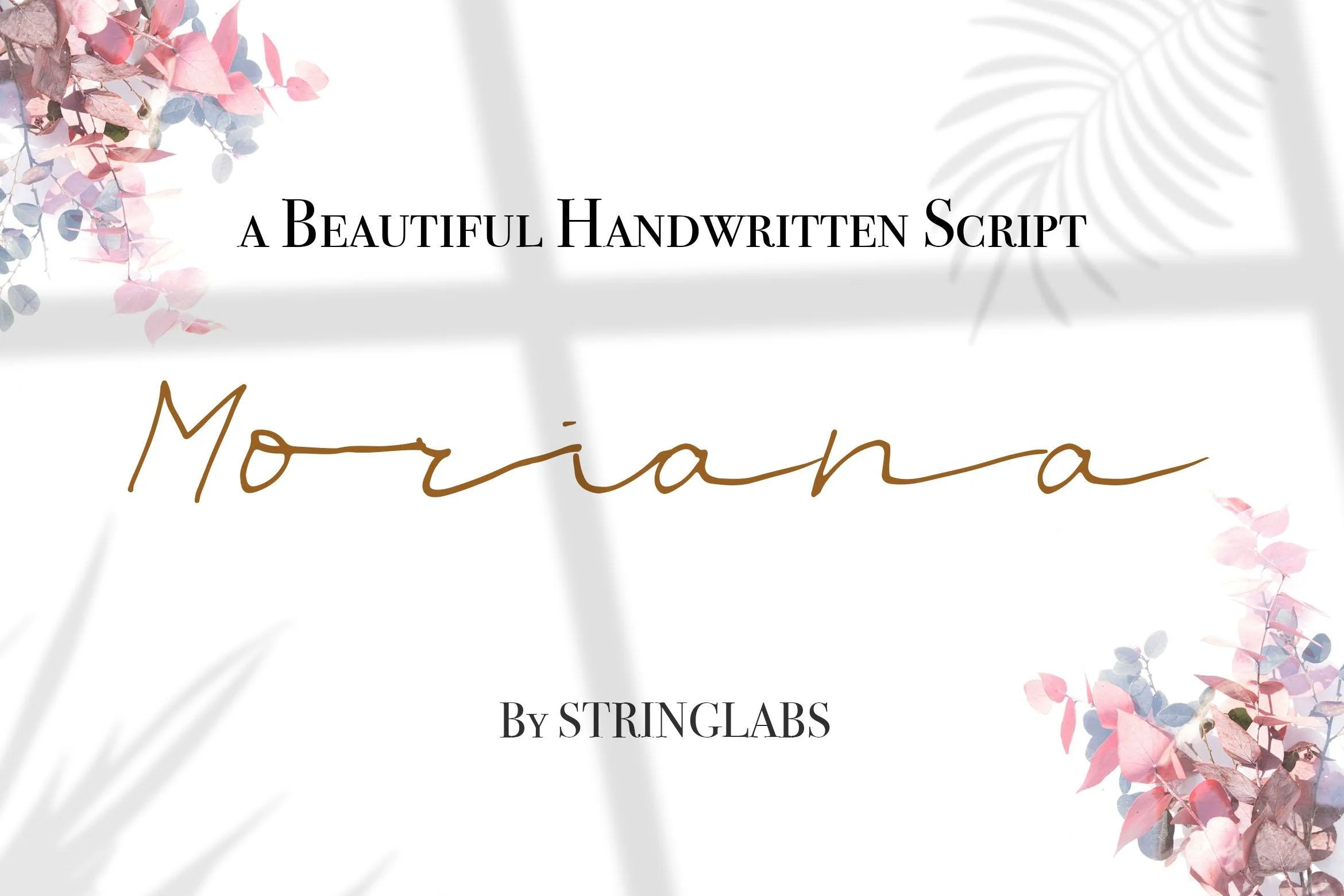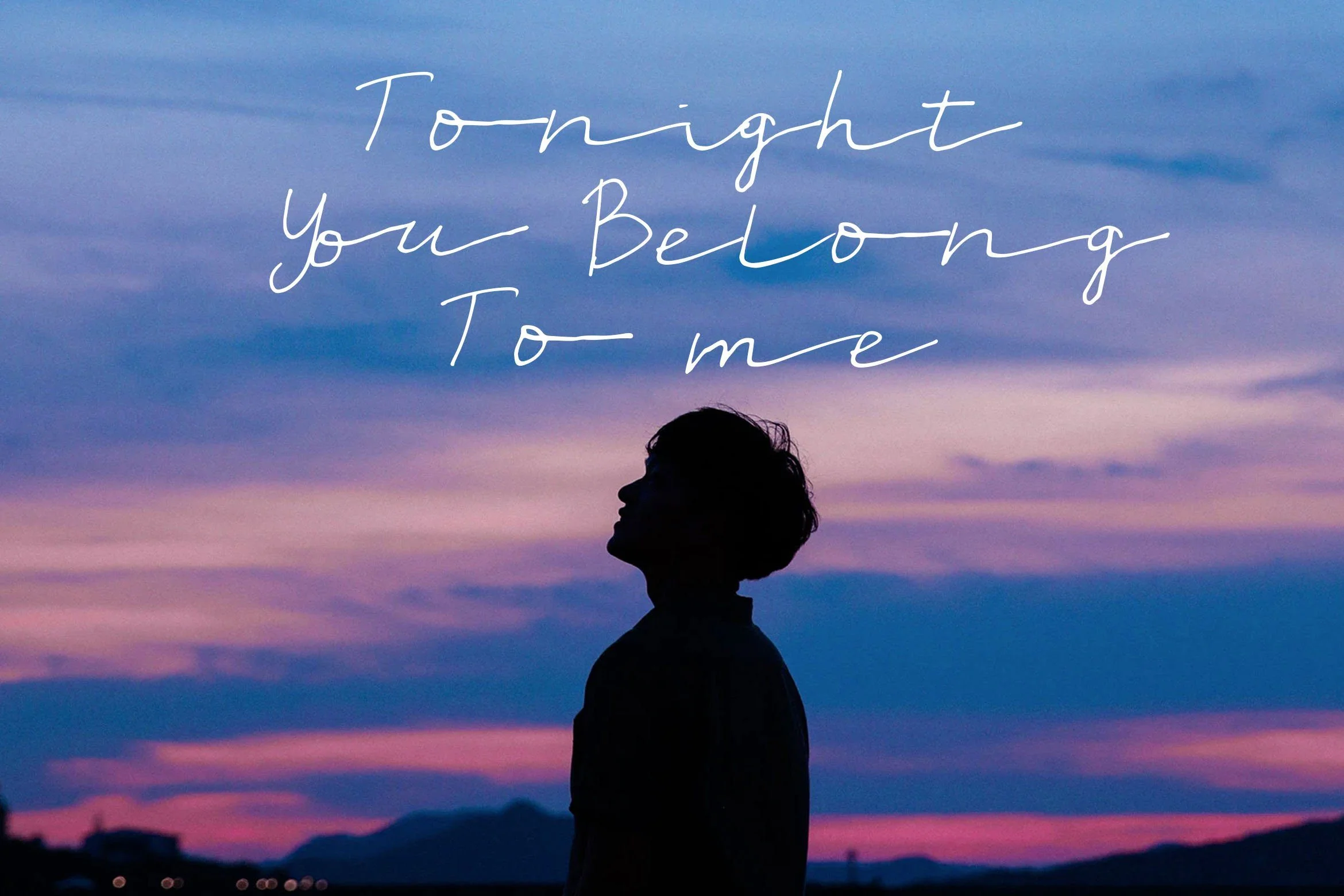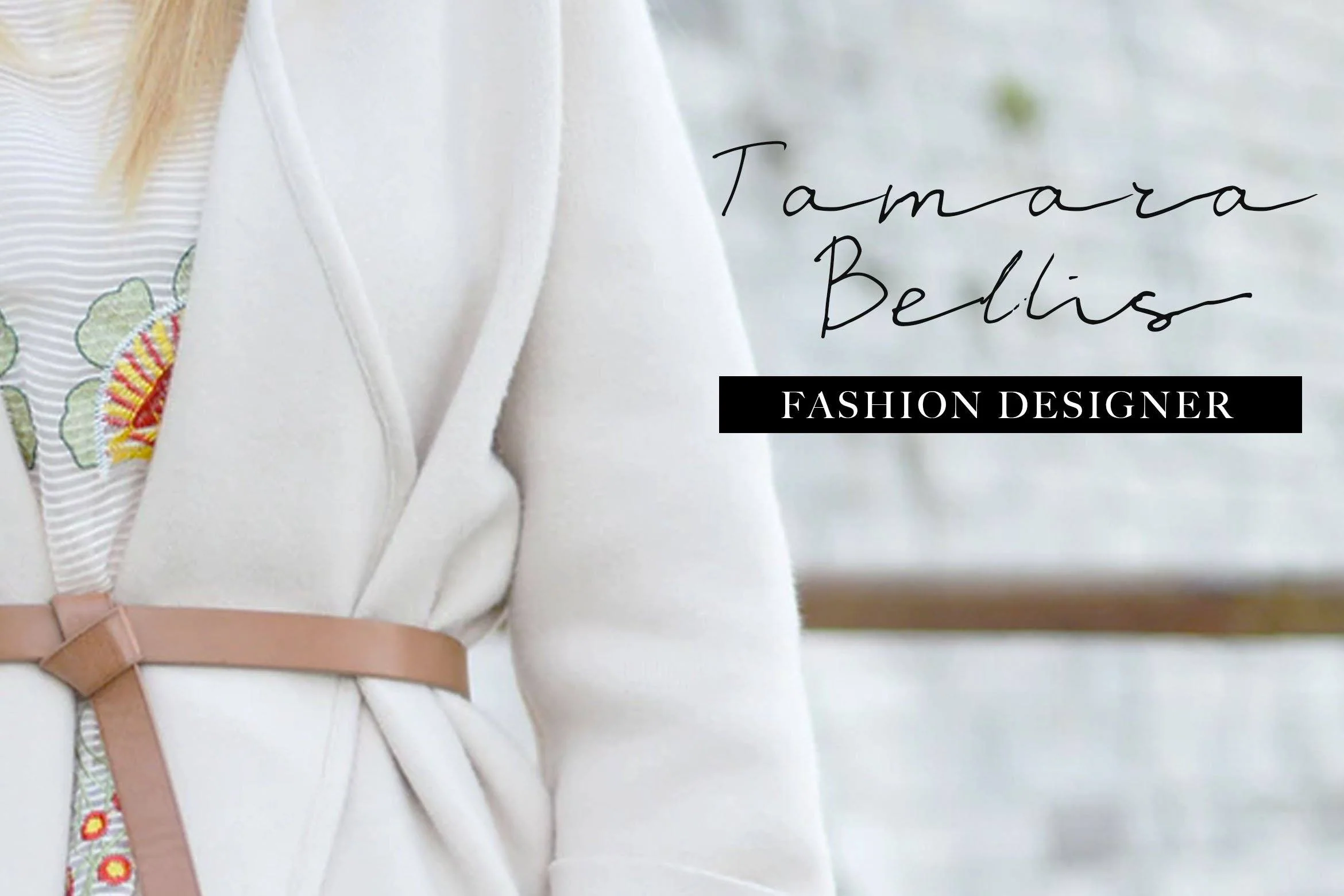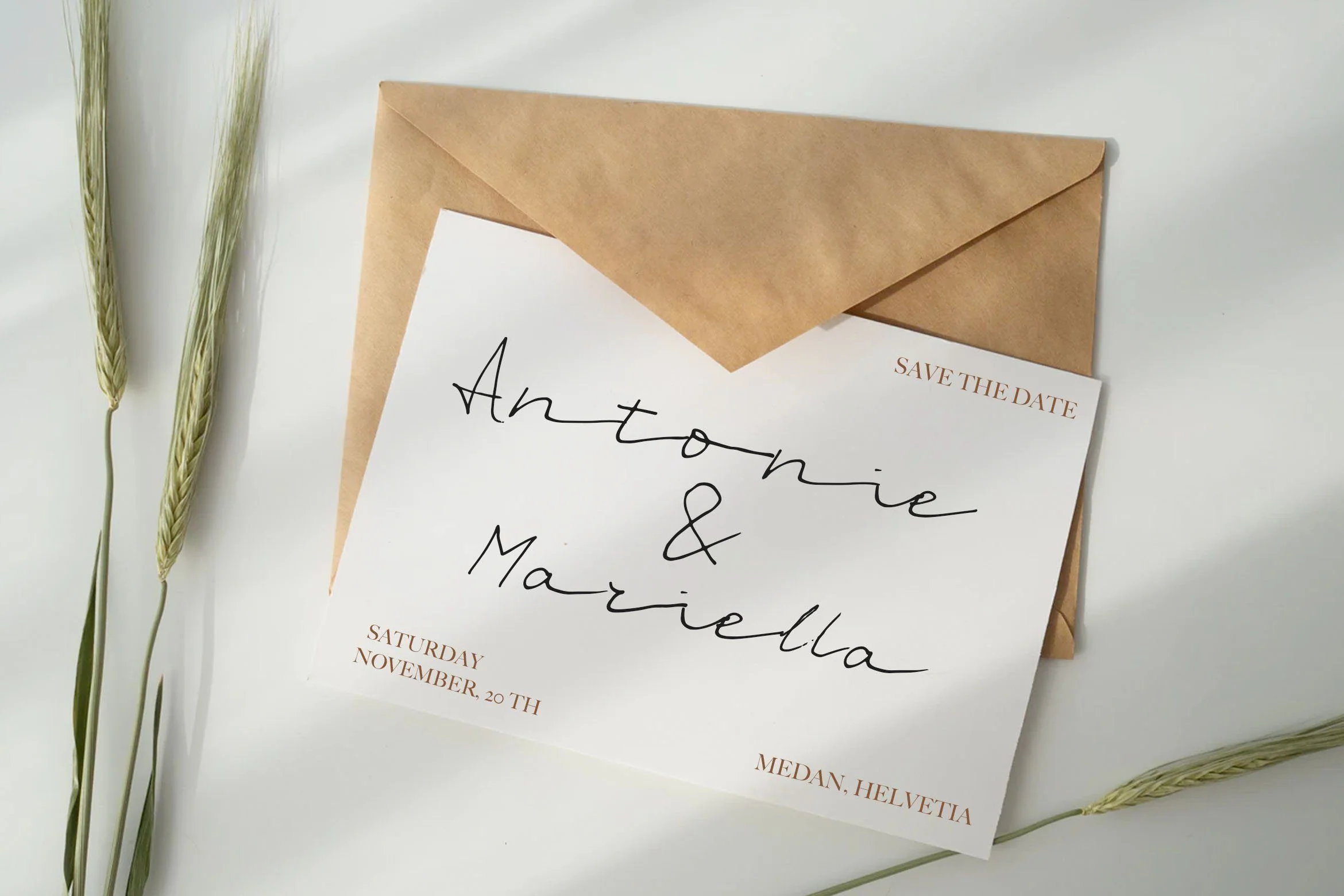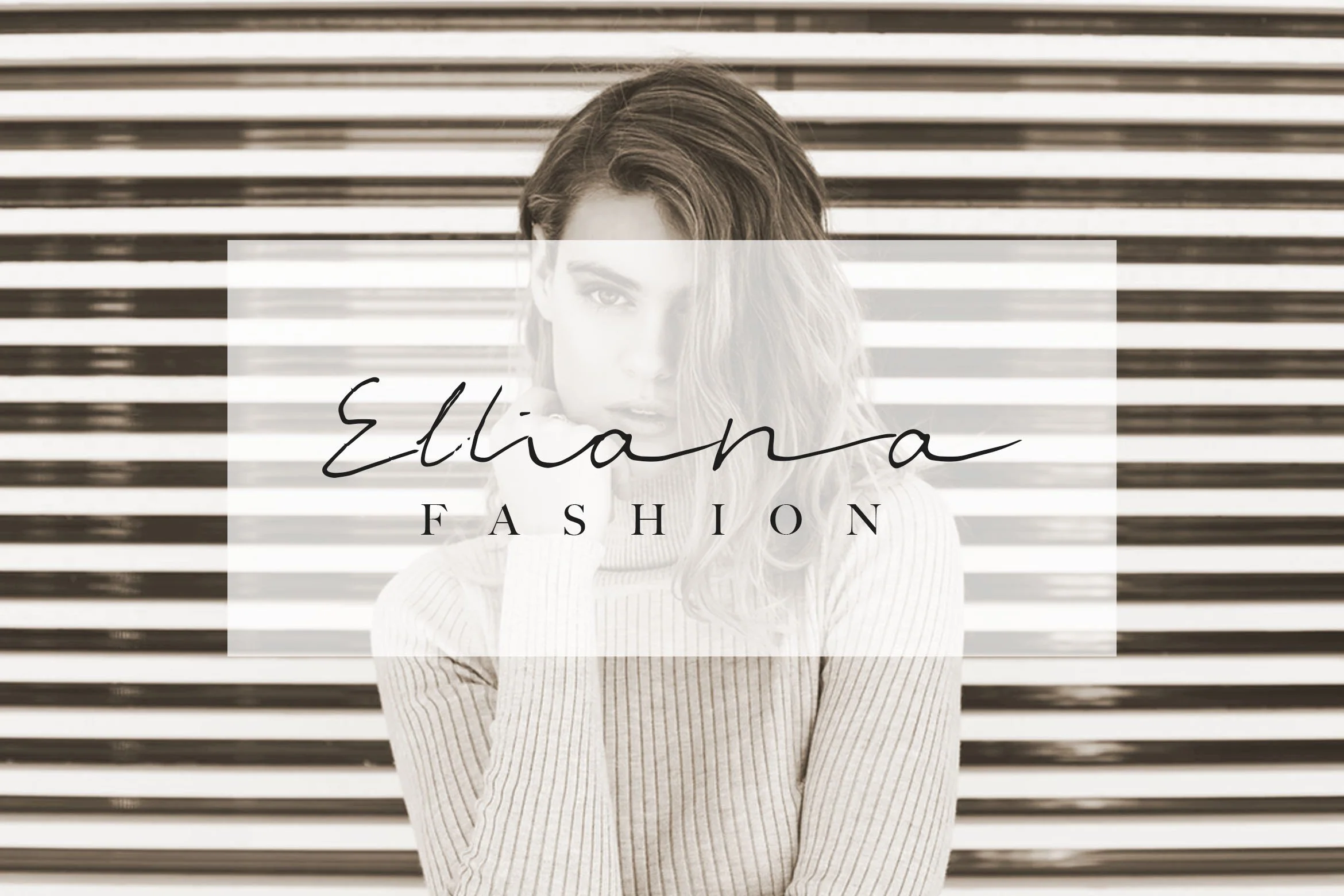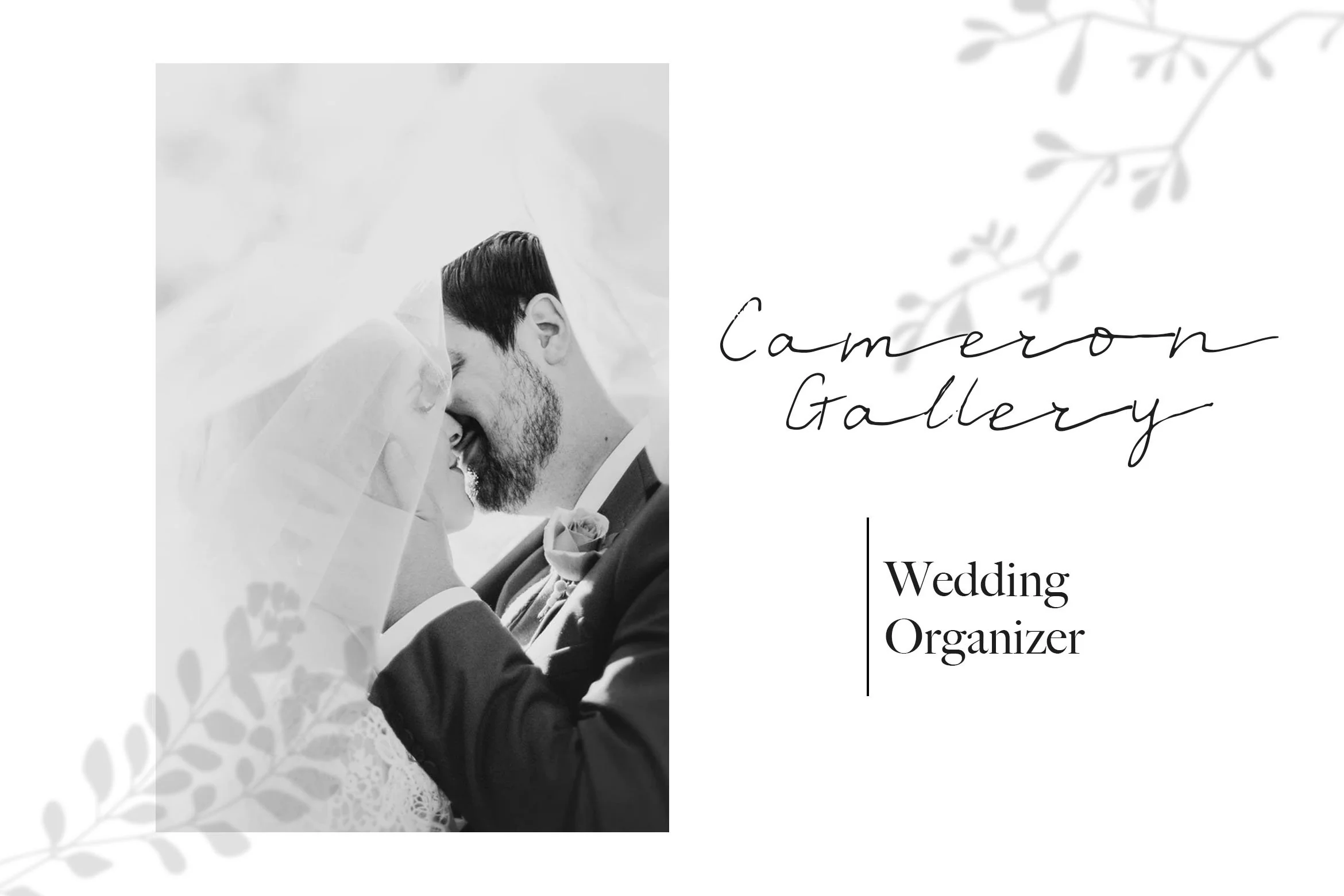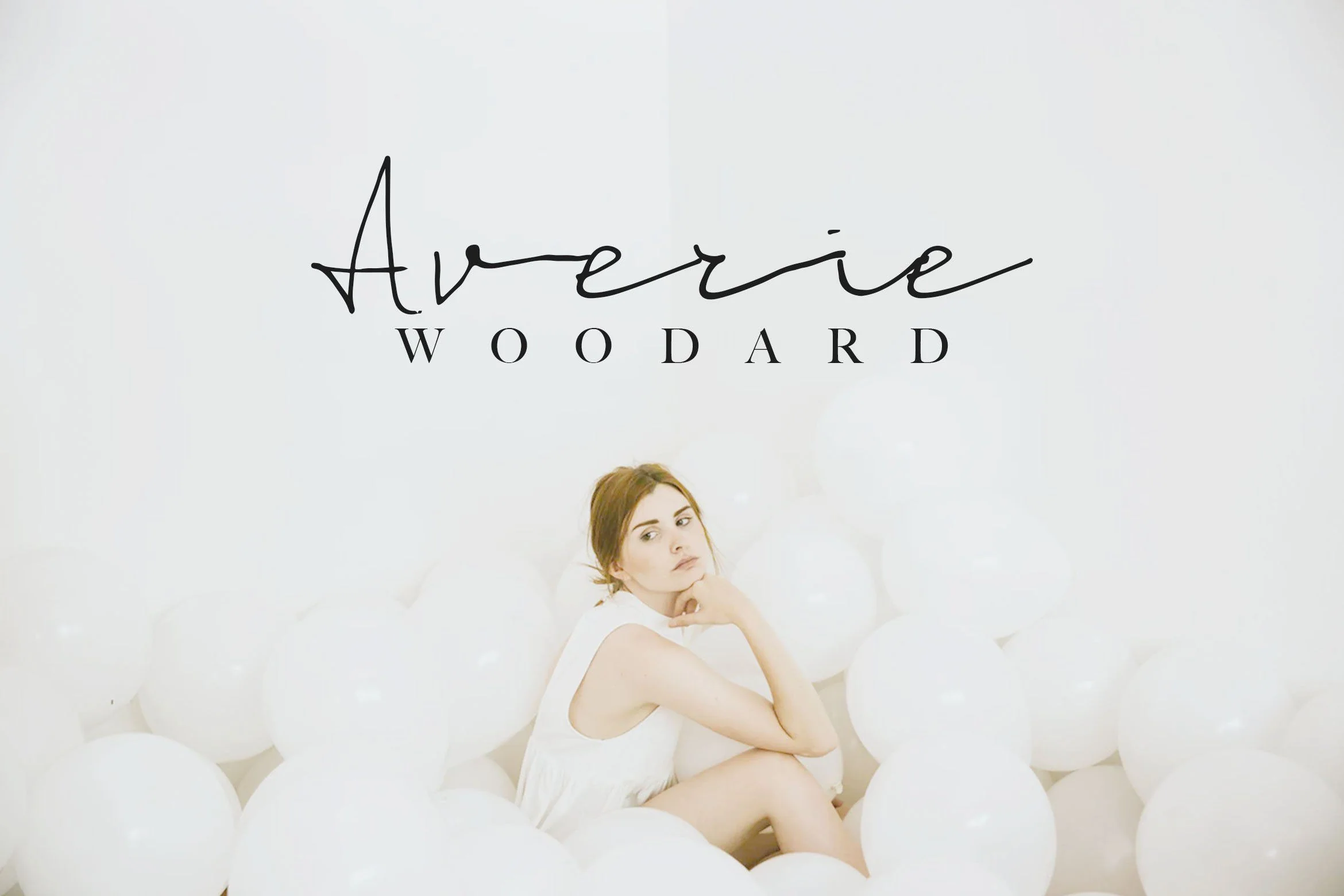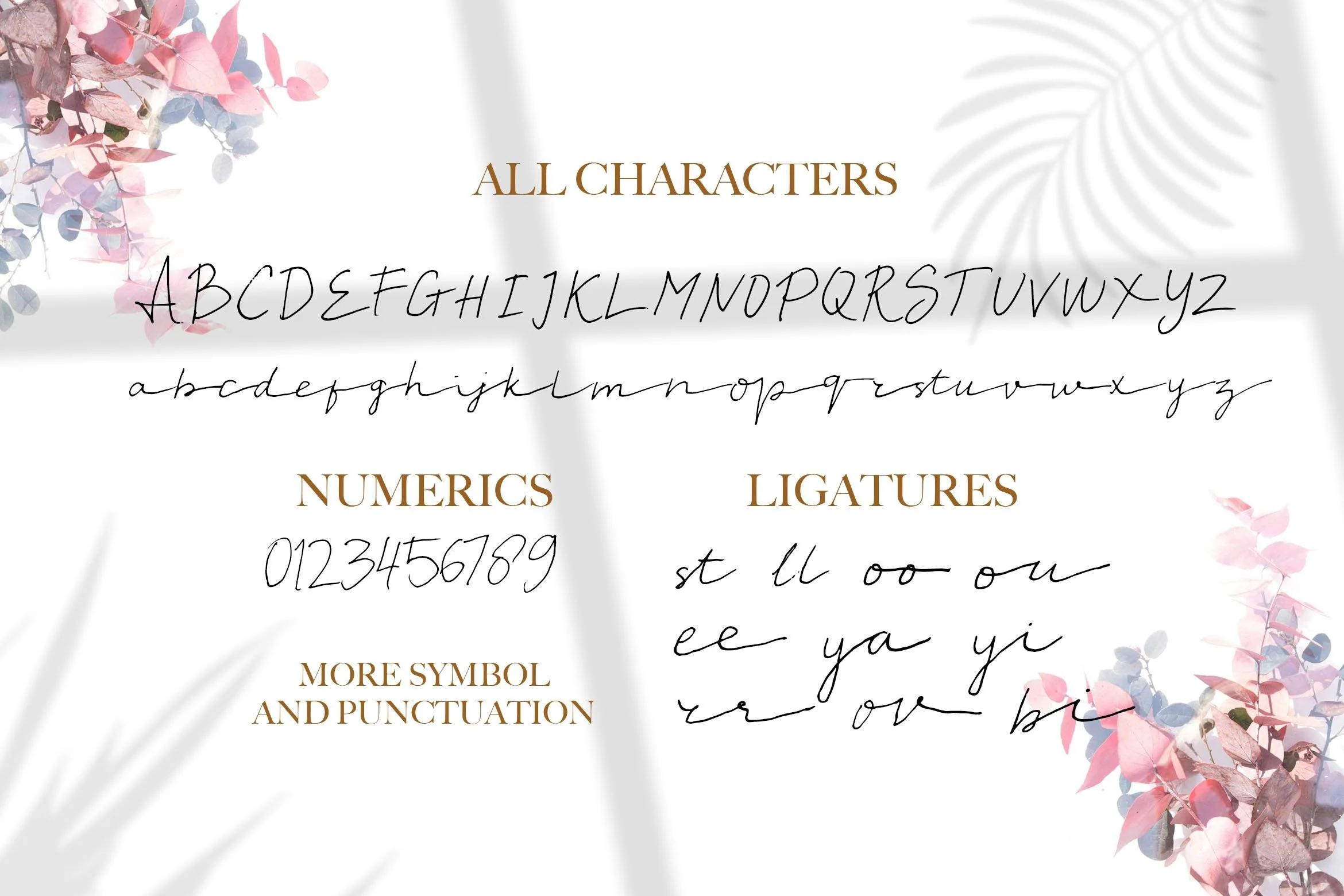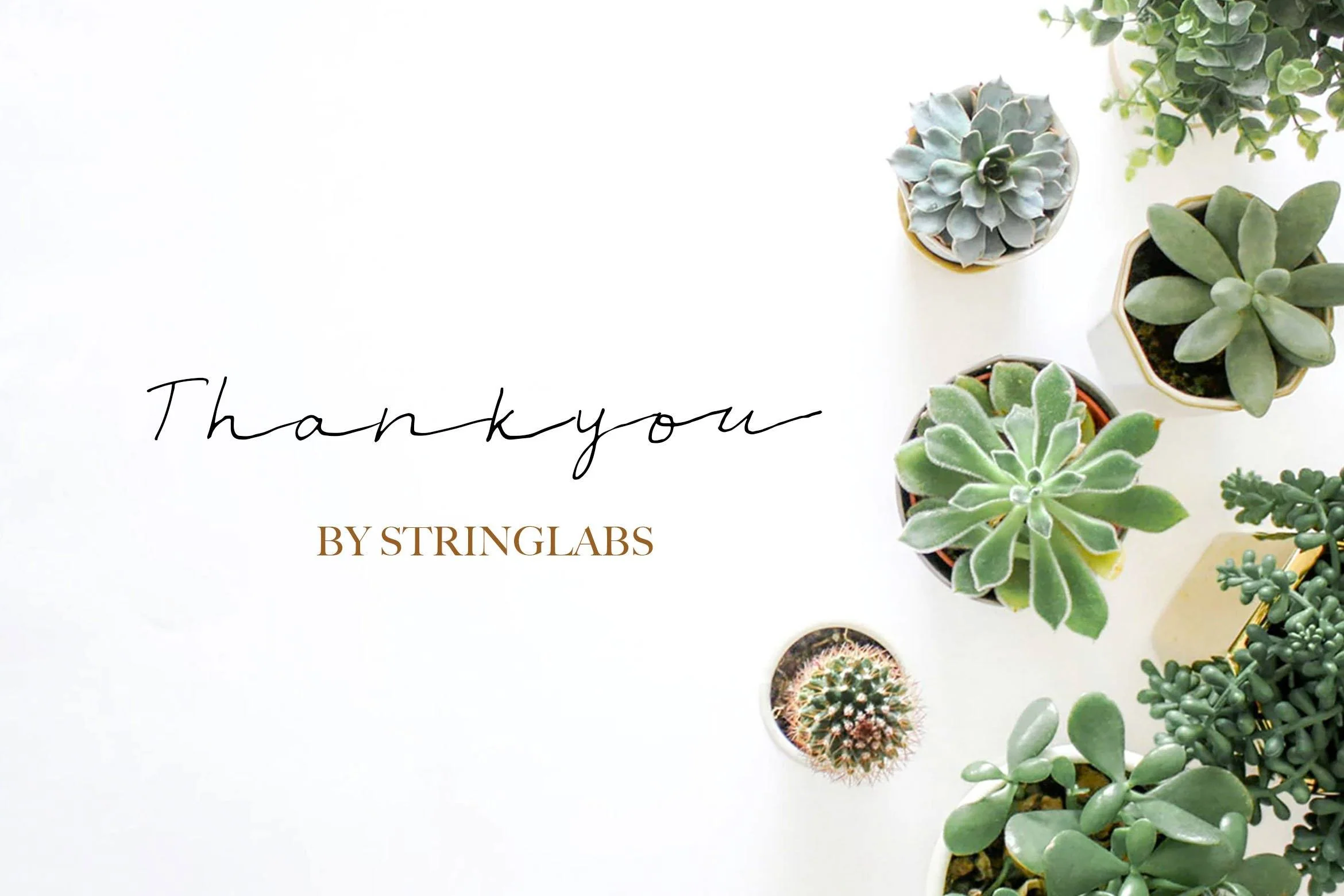
Moriana - Handwritten Script Font
Introducing Moriana - Handwritten Script Font
This Font can be used for any variety of purposes, such as:
Photography, Wedding & Birthday Invitation, Logo Type, Signature and also can be used for Personal Purpose.
This Font Template contains Modern, Elegant, Creative, Professional and Unique Concept.